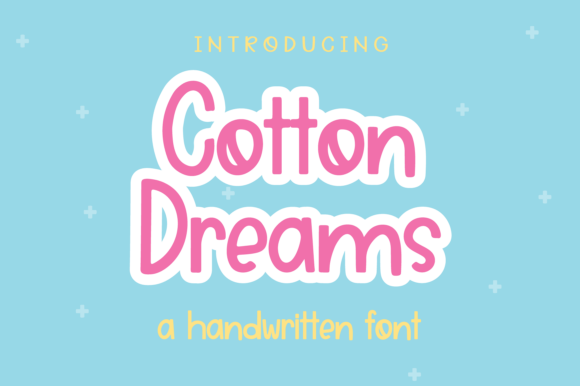
Cotton Dreams Font: The Ultimate Choice for Whimsical and Gentle Designs
Are you looking for a font that can add a touch of whimsy and gentleness to your designs? Look no further than the Cotton Dreams font. This enchantingly gentle handwritten font is perfect for creating kids-themed creations, serene baby shower invites, adorable merchandise, darling stickers, and more. In this article, we’ll take a closer look at the Cotton Dreams font and explore its features, benefits, and uses.
What is Cotton Dreams Font?
Cotton Dreams is a beautifully crafted handwritten font that exudes a sense of warmth and fantasy. Its tender curves and pastel-like appeal make it an ideal match for designs that require a touch of whimsy and sweetness. The font is designed to be versatile and can be used for a wide range of projects, from kids-themed creations to branding and advertising materials.
Key Features of Cotton Dreams Font
- Enchantingly gentle handwritten font: Cotton Dreams is a carefully crafted handwritten font that features gentle curves and flowing lines.
- Whimsical and sweet: The font has a whimsical and sweet feel to it, making it perfect for designs that require a touch of fantasy and playfulness.
- Pastel-like appeal: The font features a soft and pastel-like color scheme that adds to its gentle and soothing appeal.
- Versatile: Cotton Dreams is a versatile font that can be used for a wide range of projects, from kids-themed creations to branding and advertising materials.
Benefits of Using Cotton Dreams Font
There are several benefits to using Cotton Dreams font in your designs. Here are a few:
- Adds a touch of whimsy and fantasy: Cotton Dreams font adds a touch of whimsy and fantasy to your designs, making them more engaging and appealing.
- Perfect for kids-themed creations: The font is perfect for kids-themed creations, such as children’s books, nursery decor, and kids’ clothing.
- Great for branding and advertising: Cotton Dreams font is also great for branding and advertising materials, such as logos, packaging, and flyers.
- Easy to read: The font is easy to read, making it perfect for body text and headings.
Uses of Cotton Dreams Font
Cotton Dreams font can be used for a wide range of projects, including:
- Kids-themed creations: Children’s books, nursery decor, kids’ clothing, and more.
- Serene baby shower invites: Create beautiful and inviting baby shower invites with Cotton Dreams font.
- Adorable merchandise: Use Cotton Dreams font to create adorable merchandise, such as stickers, toys, and more.
- Branding and advertising: Use Cotton Dreams font for branding and advertising materials, such as logos, packaging, and flyers.
Tips for Using Cotton Dreams Font
Here are a few tips for using Cotton Dreams font:
- Use it for headings and titles: Cotton Dreams font is perfect for headings and titles, as it adds a touch of whimsy and fantasy to your text.
- Pair it with other fonts: Cotton Dreams font can be paired with other fonts to create a unique and interesting look.
- Use it for body text: Cotton Dreams font is easy to read, making it perfect for body text.
- Experiment with colors: Try experimenting with different colors to find the perfect match for your design.
In conclusion, Cotton Dreams font is a beautifully crafted handwritten font that is perfect for designs that require a touch of whimsy and gentleness. Its tender curves and pastel-like appeal make it an ideal match for kids-themed creations, serene baby shower invites, adorable merchandise, and more. With its versatility and ease of use, Cotton Dreams font is a great addition to any designer’s toolkit.
- What is Cotton Dreams font?: Cotton Dreams font is a beautifully crafted handwritten font that features gentle curves and flowing lines.
- What is Cotton Dreams font used for?: Cotton Dreams font can be used for a wide range of projects, including kids-themed creations, serene baby shower invites, adorable merchandise, and more.
- Is Cotton Dreams font easy to read?: Yes, Cotton Dreams font is easy to read, making it perfect for body text and headings.